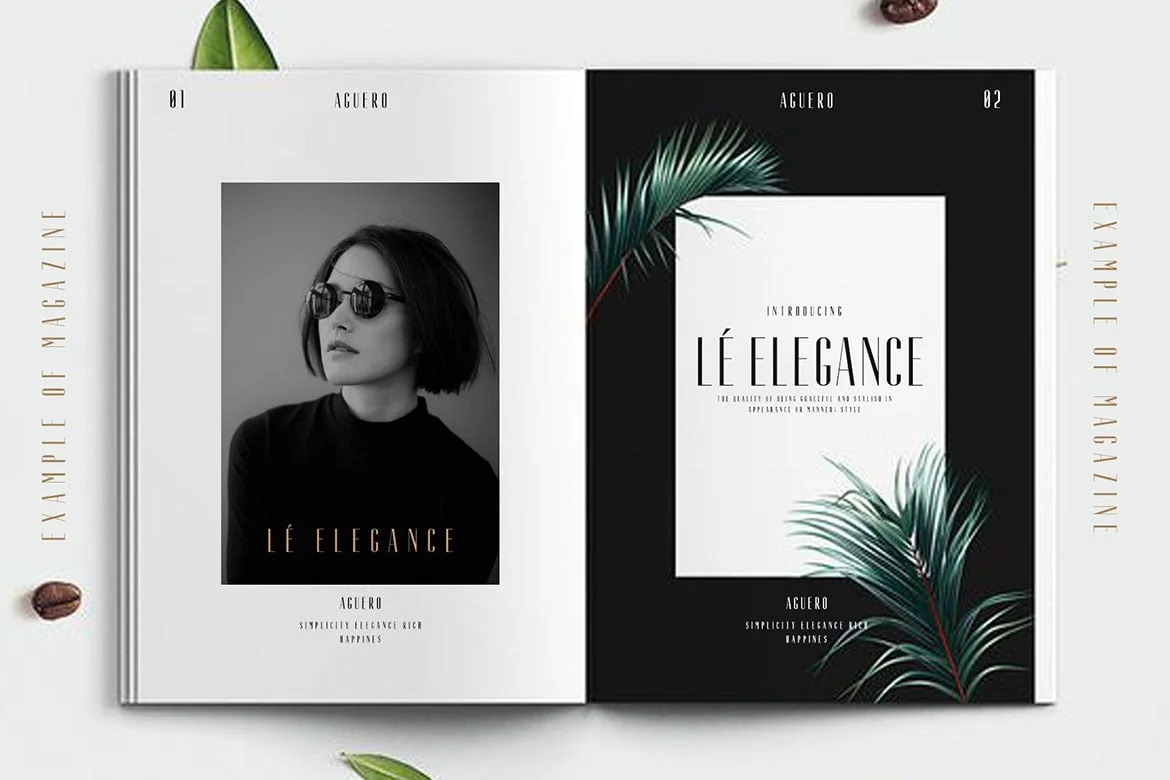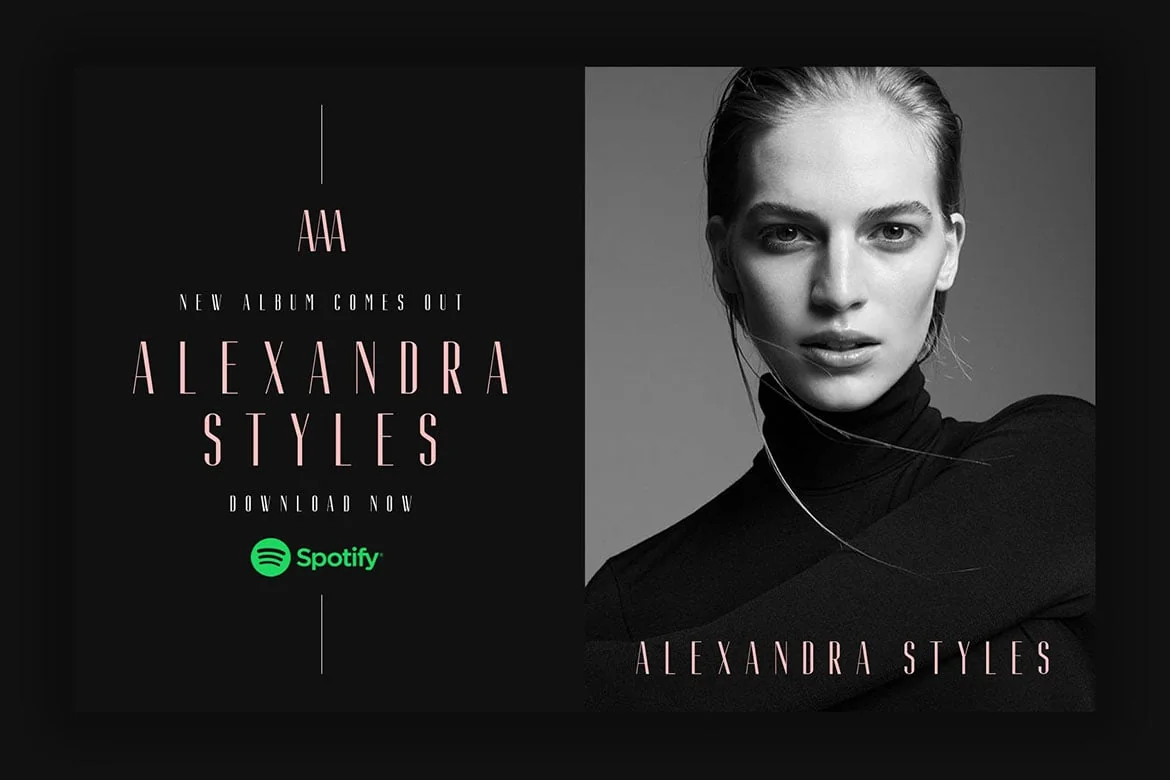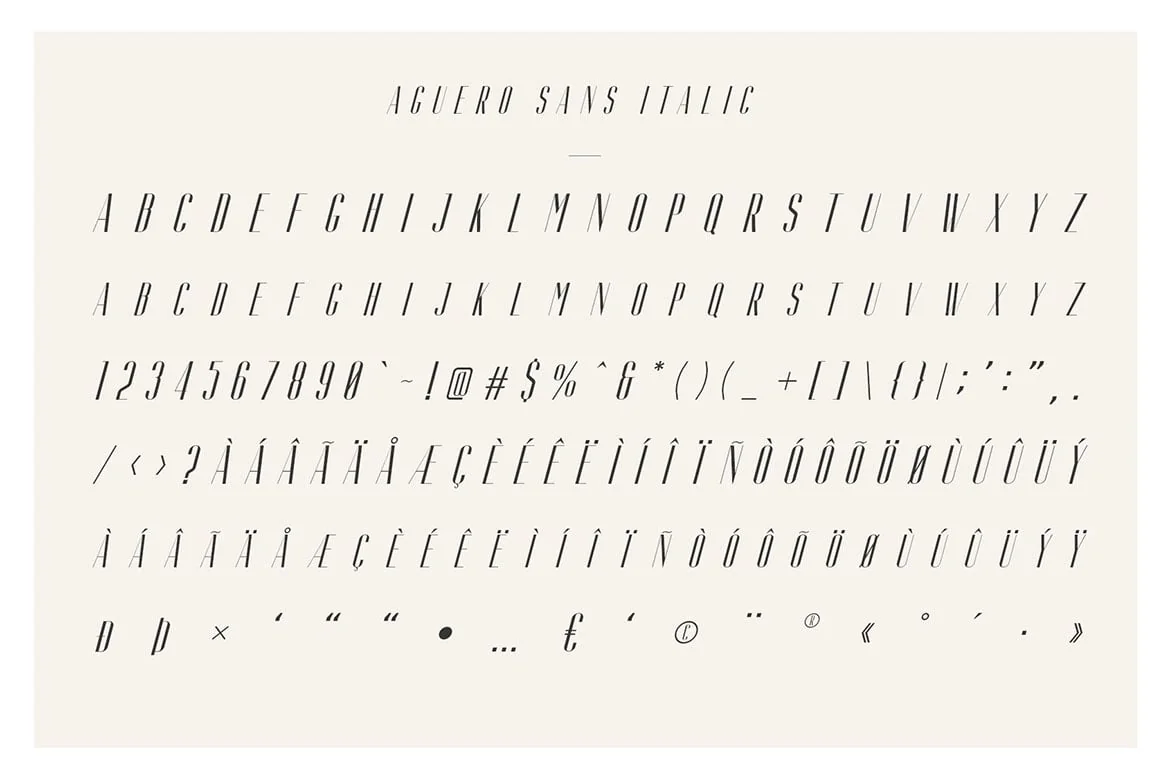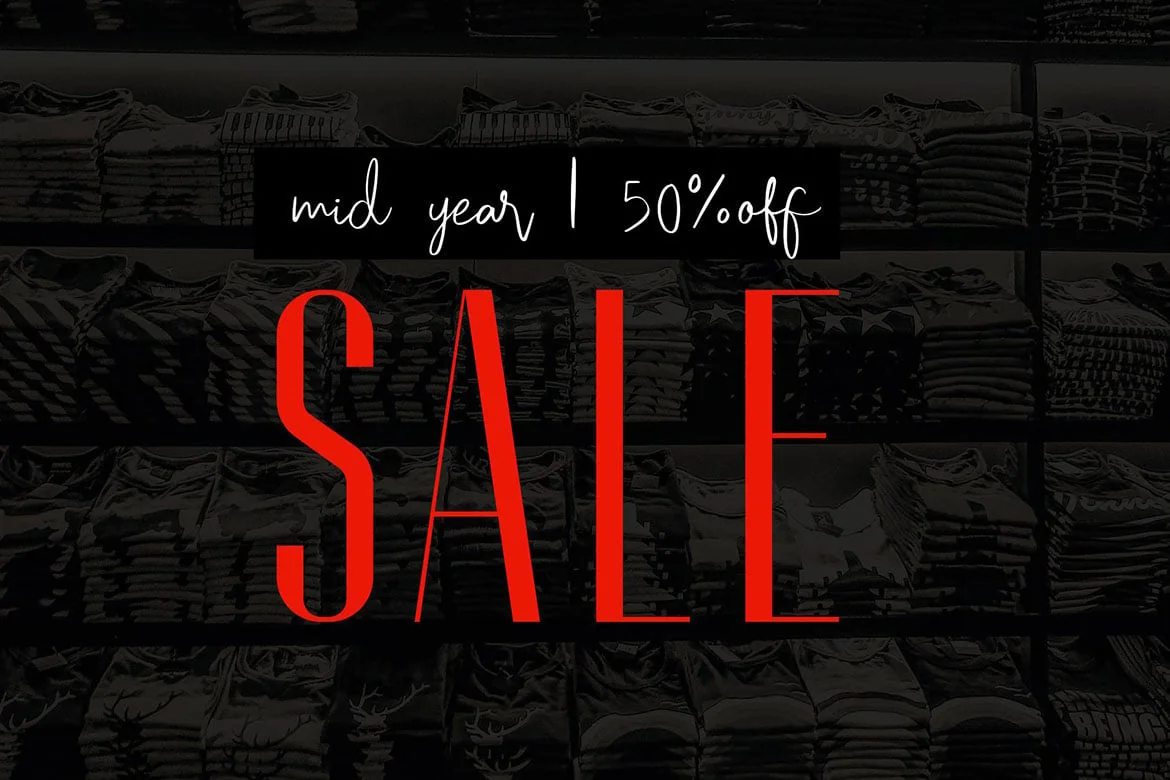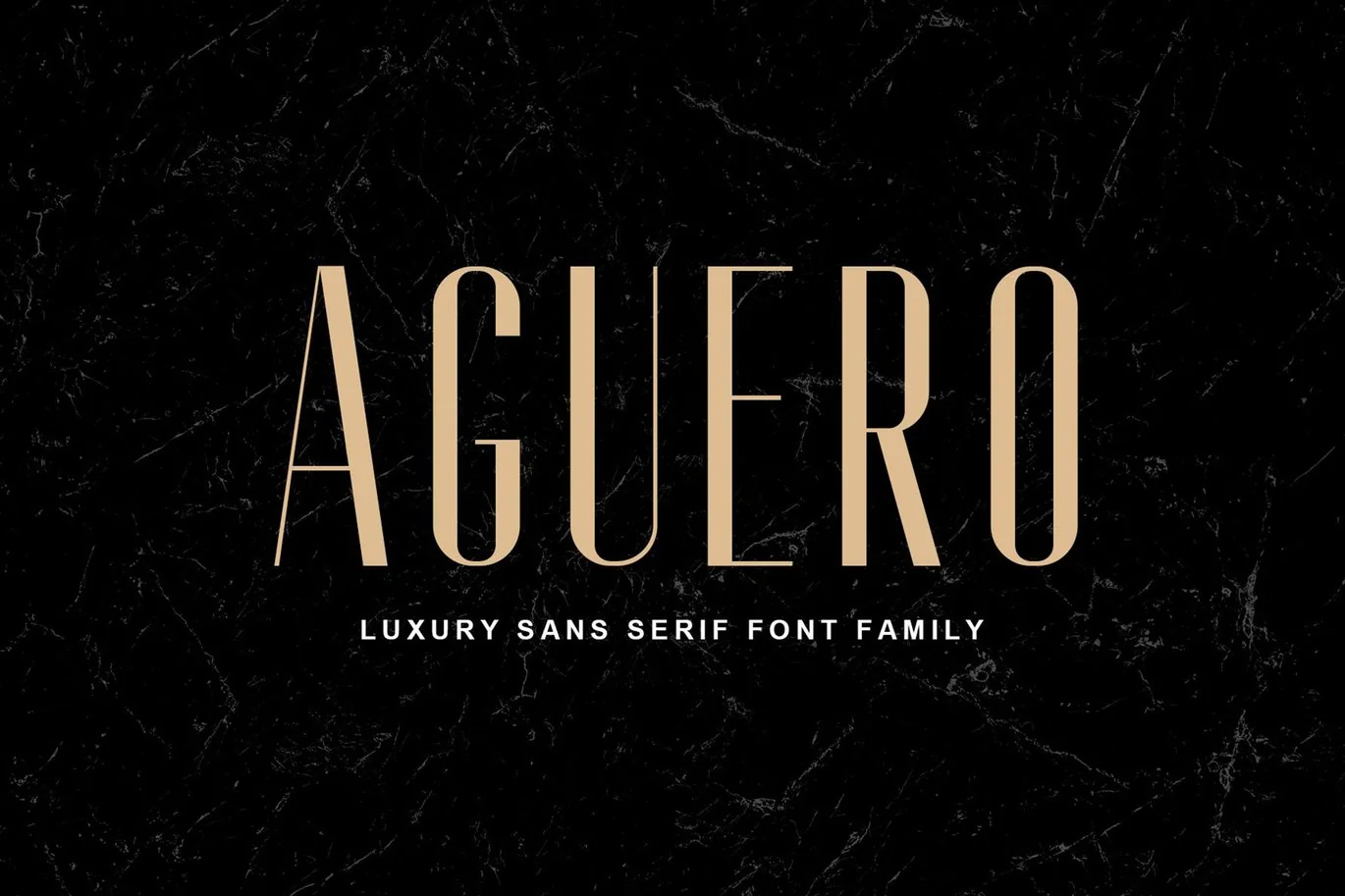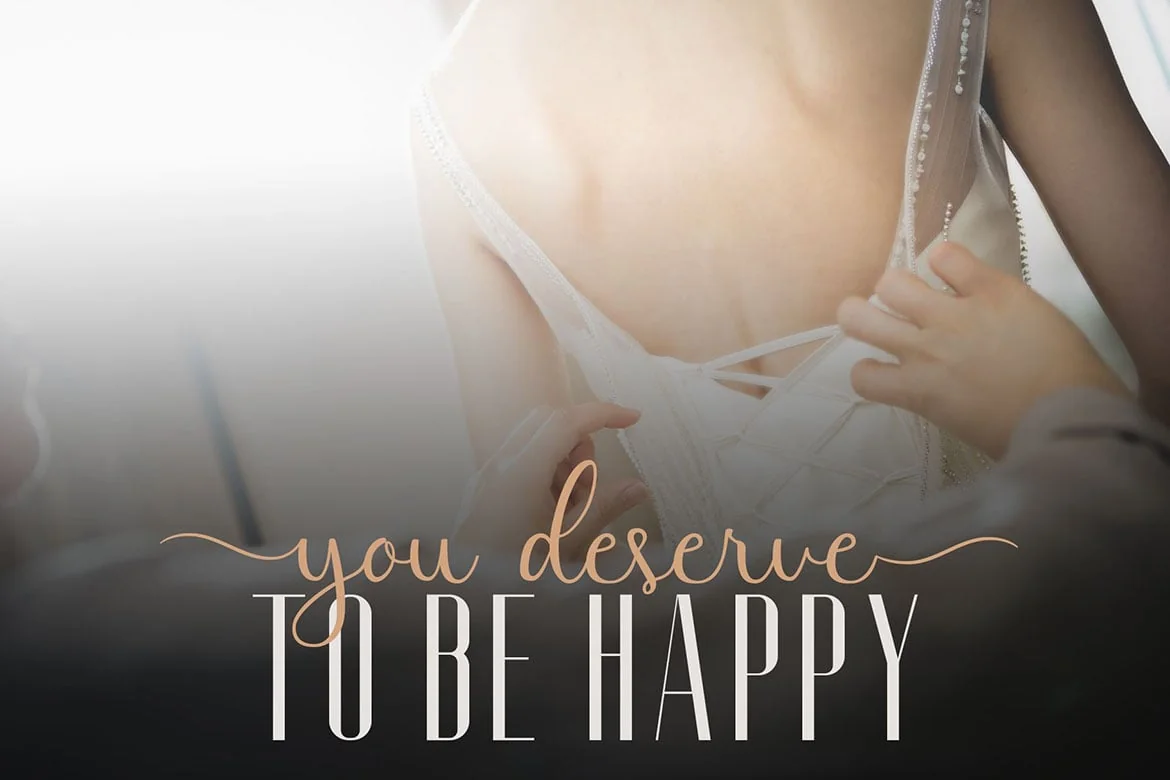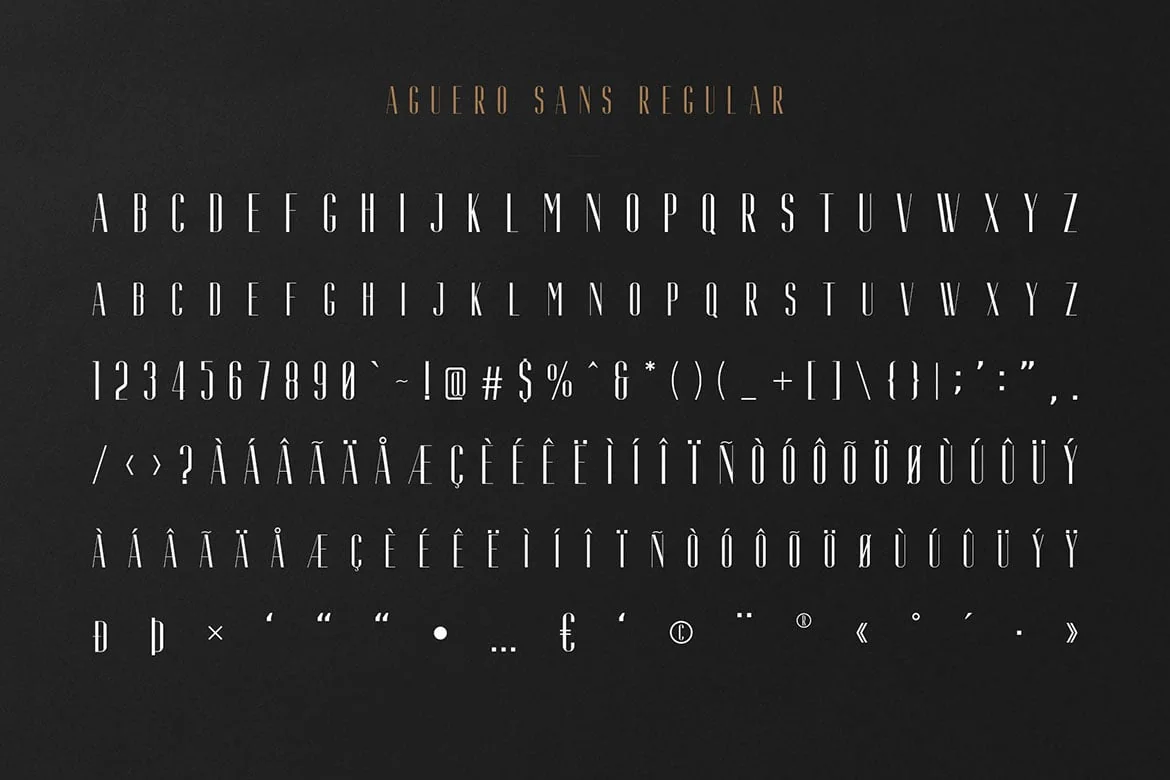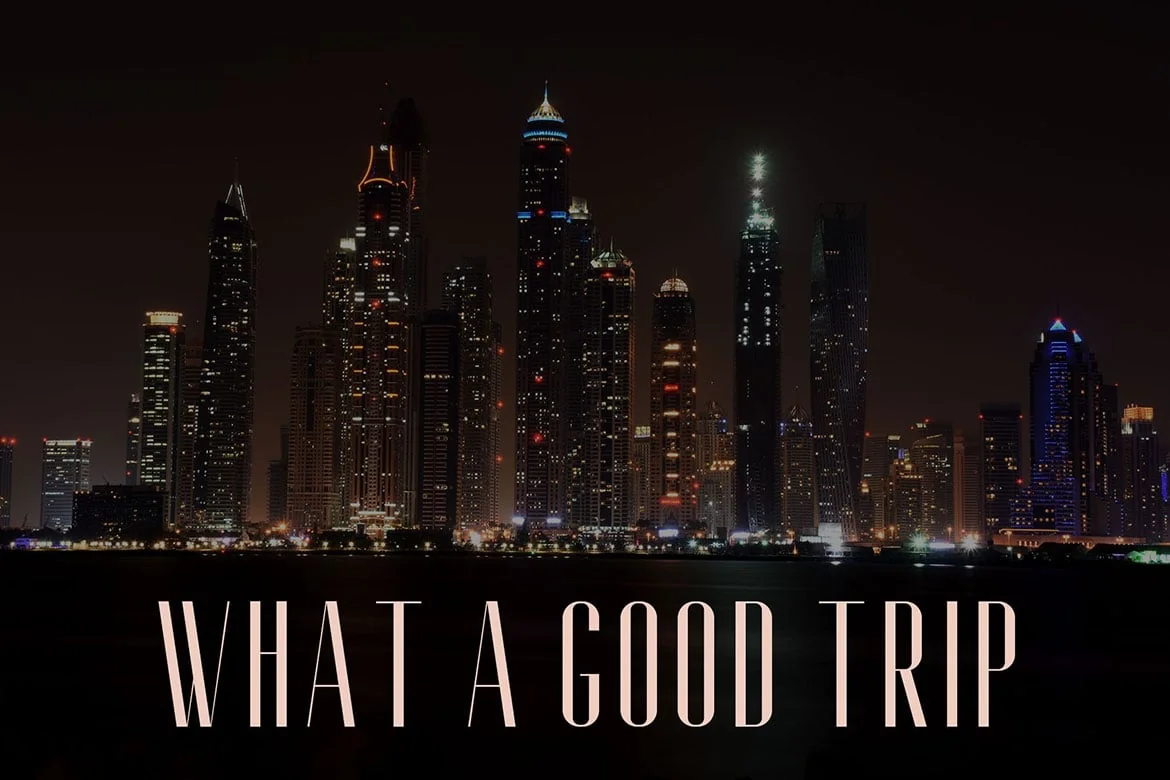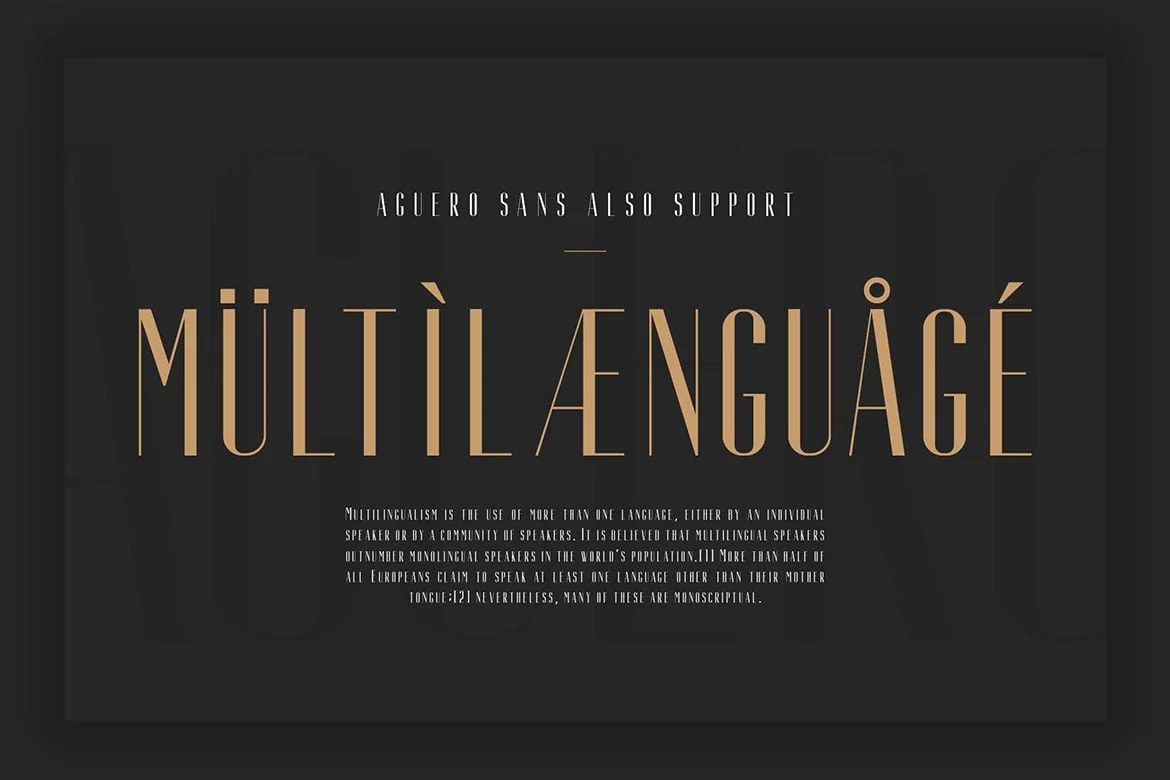
Aguero Sans – Luxury Sans Serif Font
Introducing New Font : Aguero Sans – Font Family
Aguero Sans – Font Family is a modern serif font family whose design refers us to the style of modern sans serif. The distinctive features of Aguero Sans – Font Family are the relatively low contrast of strokes, the slightly squarish shapes of round characters and the emphasized business like simplicity.
Aguero Sans – Font Family has been crafted from scratch with a structural logic of its own: a fusion of pure geometry and optical balance. By combining a variety of styles Aguero Sans – Font Family is suitable for Logo, greeting cards, quotes, posters, branding, name card, stationary, design title, blog header, art quote, typography
Aguero Sans – Font Family also suitable for art, modern envelope lettering or book design, happening style like handdrawn design or watercolor design theme, craft design, any DIY project, book title, wedding font, pop vintage design, or any purpose to make our art/design project look pretty and trendy.
- Accents (Multilingual characters) AÀÁÂÃÄÅCÇDÐEÈÉÊËIÌÍÎÏNÑOØÒÓÔÕÖUÙÜÚÛWYÝŸỲŸÆŒßÞþ